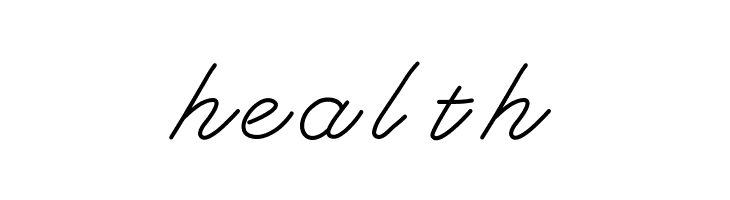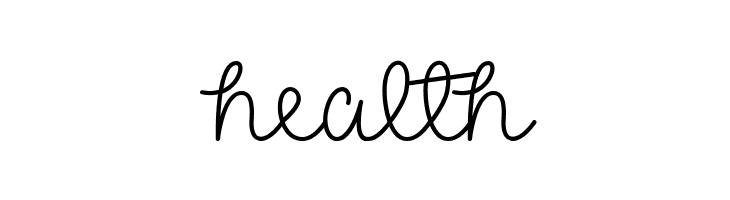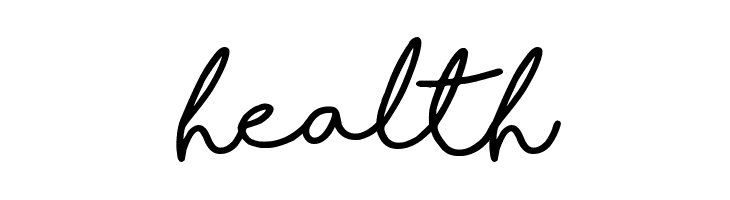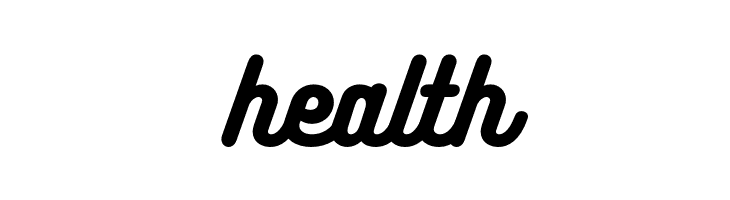
A whimsical and elegant script font with flowing, cursive letters and intricate loops.
A playful, cursive font with smooth, interconnected strokes and a handwritten feel.
A playful and whimsical script font with flowing, cursive letters.
A charming, elegant script font with fluid, cursive strokes and seamless flow.
A bold, flowing script font with interconnected characters and a cursive style.
A casual, cursive script font with a friendly and handwritten style.